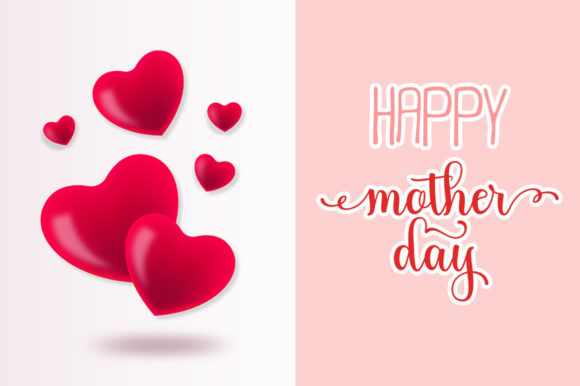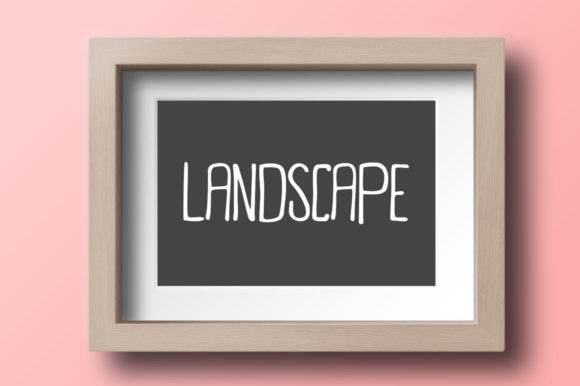
Lonely Heart Font
db-ku.com - Script & Handwritten -- Lonely Heart is a lovely duo font (sans serif and script). It will add a luxury spark to any design project that you wish to create! This font is PUA encoded which means you can access all of the amazing glyphs and ligatures with ease!